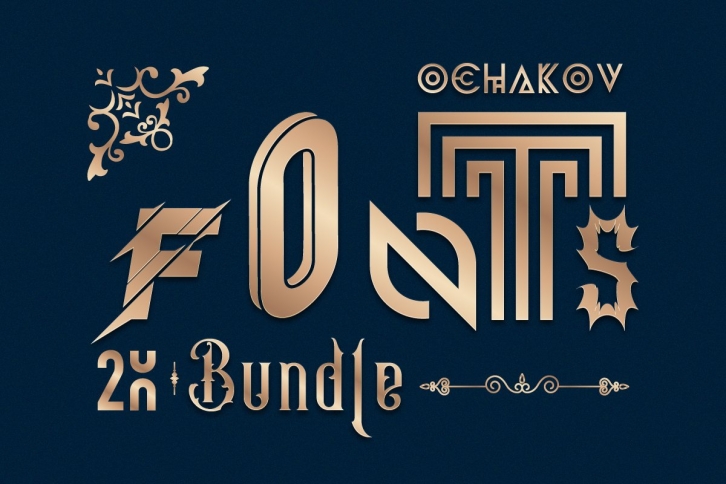
The Ochakov s Bundle is a trendy and unique font with an authentic style. It was designed by Ochakov and it's a great choice for creative people who need such a font. It was released on April 10, 2022 and the file size is 7.44 MB. The Ochakov s Bundle will add an organic vibe to any design idea!